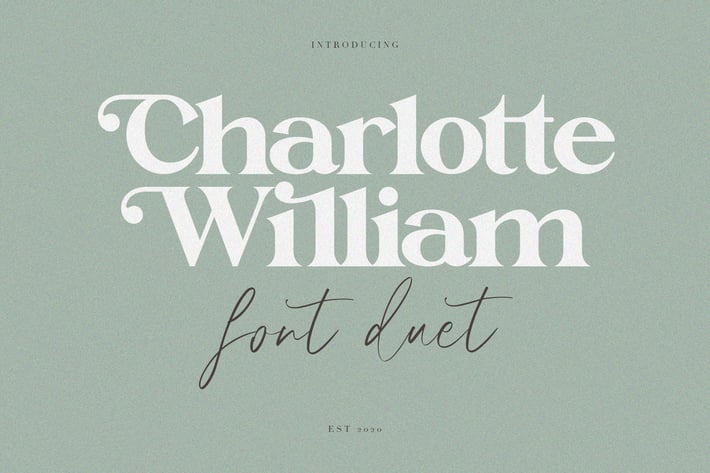
Charlotte William Font Duet
Introducing Charlotte William Font Duet - Serif and Script Font
Charlotte William Serif is a handmade Victorian handlettering, which is combining modern and classic typography with some awesome alternates. Yes we back to early 1800s, bring classic touch on this decade.
Give your designs an authentic handcrafted feel. "Charlotte William" is perfectly suited to signature, stationery, logo, typography quotes, magazine or book cover, website header, clothing, branding, packaging design and more.